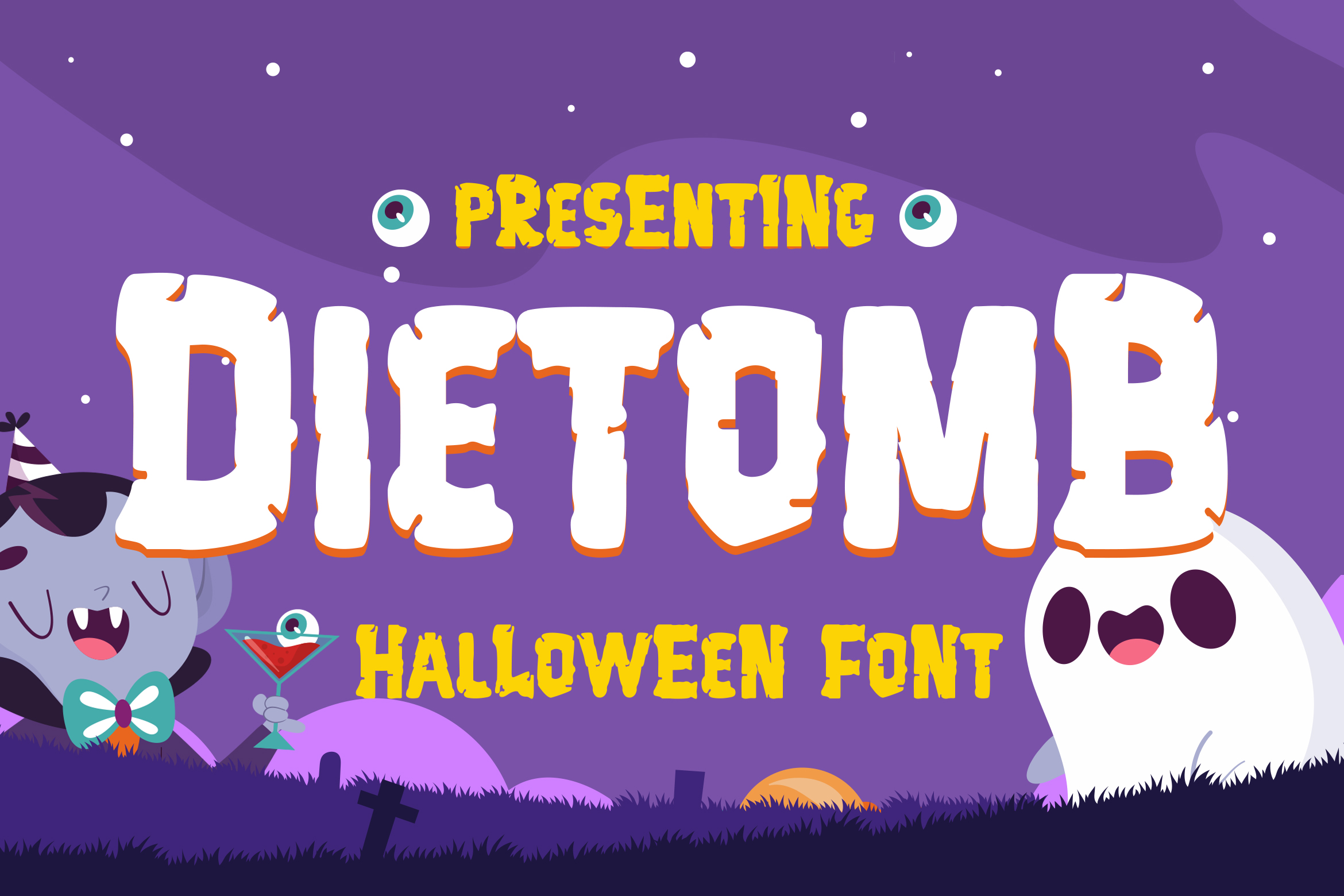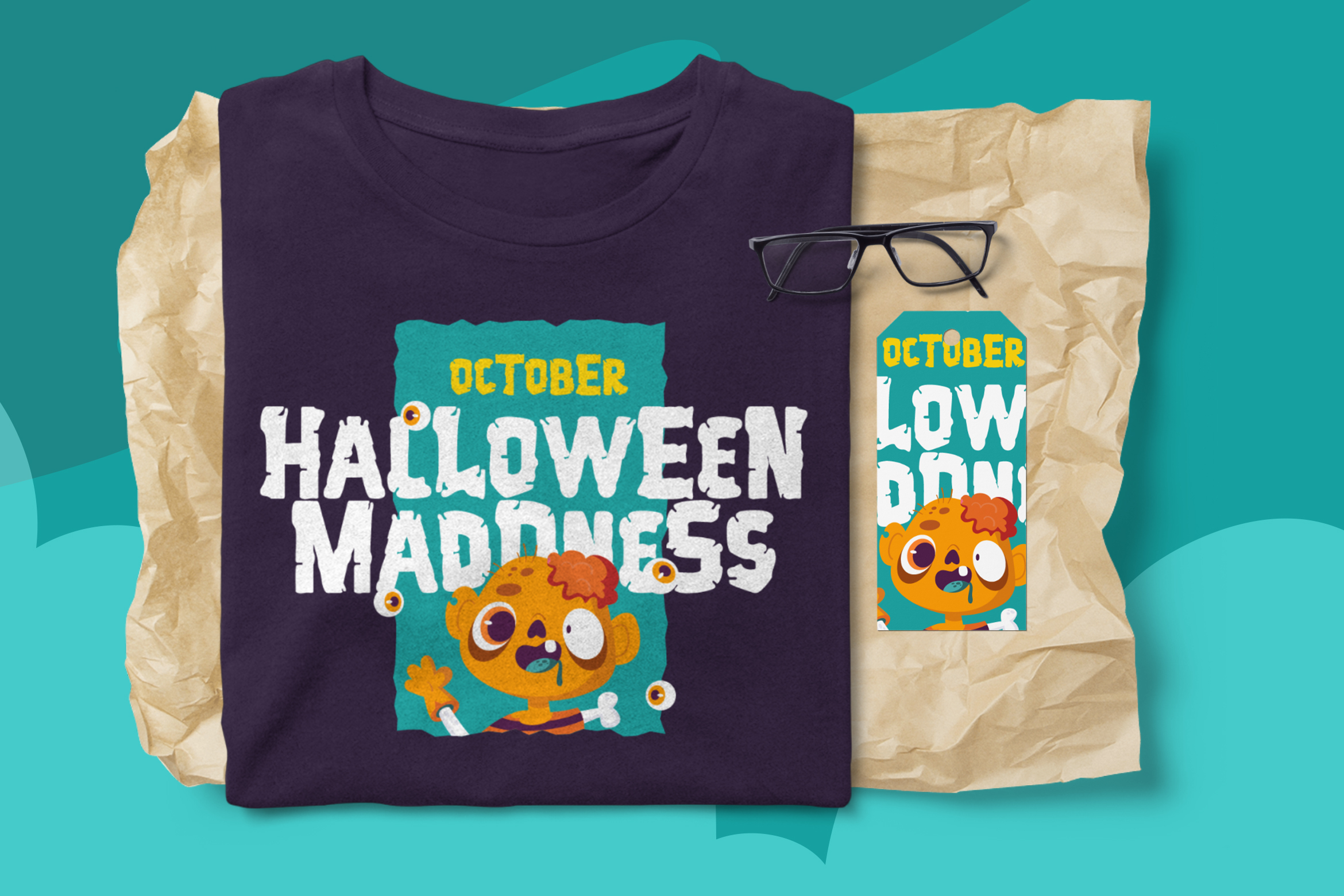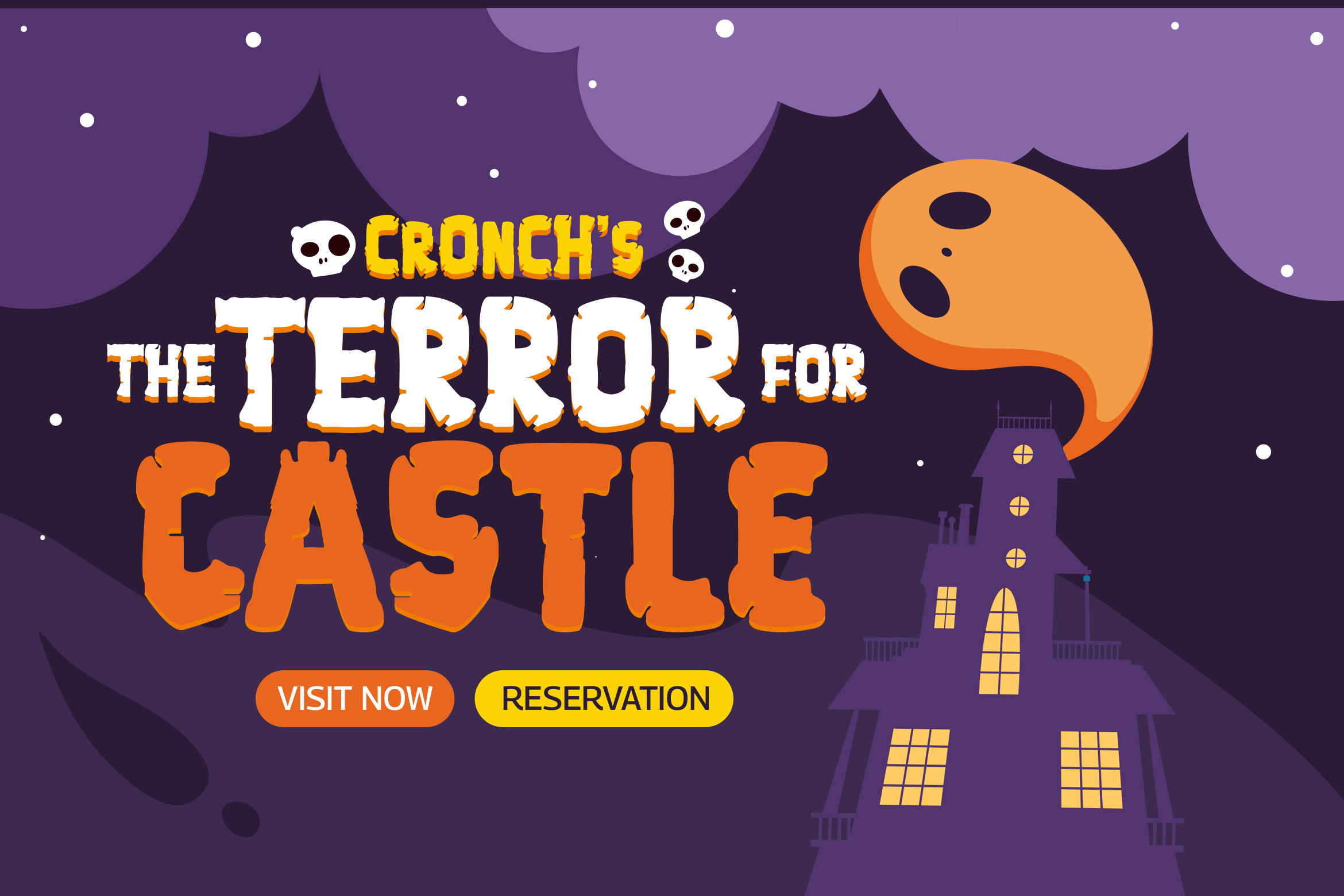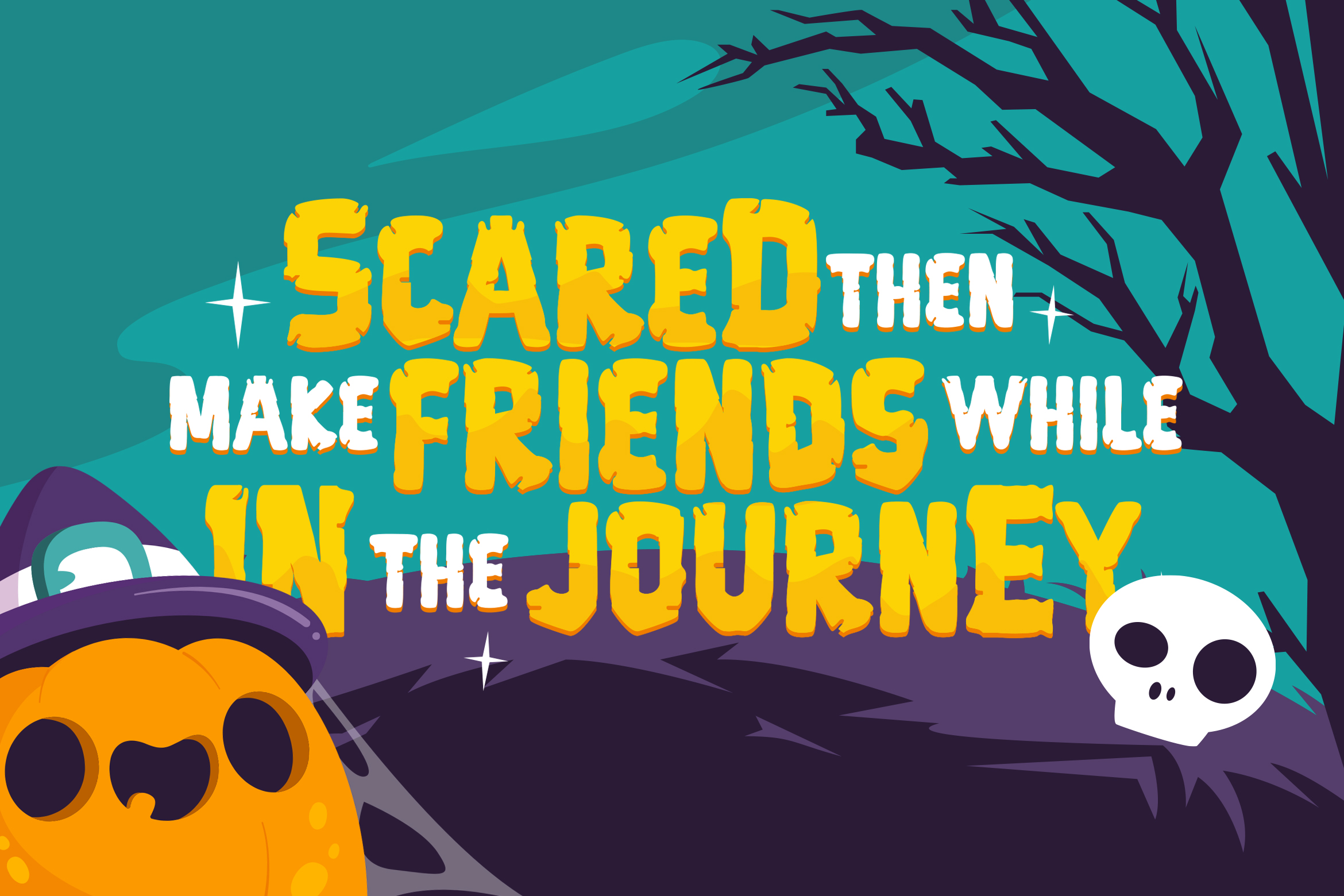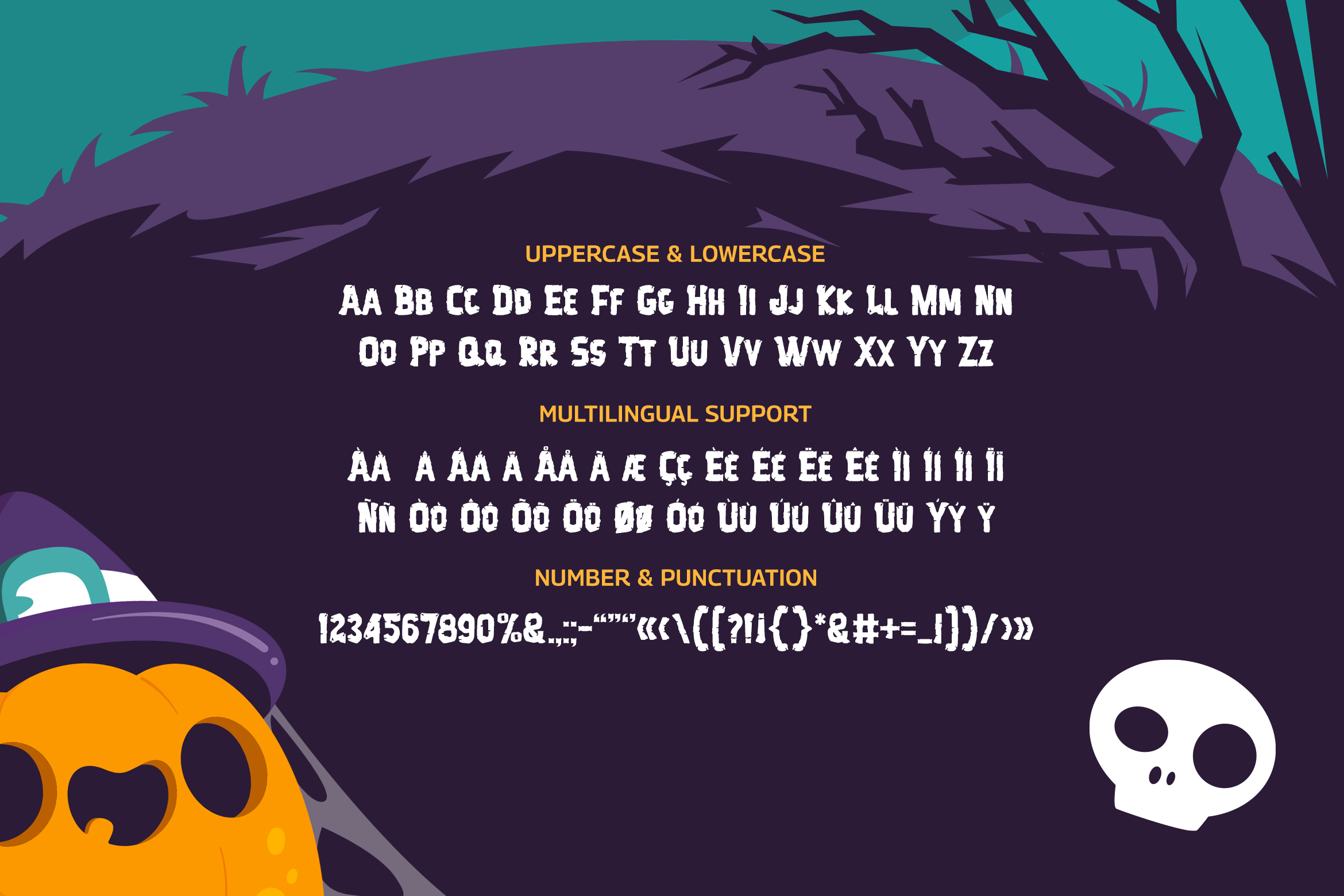
Dietomb is a spooky yet playful Halloween font designed to bring your seasonal projects to life. With its bold, irregular letterforms and eerie cartoonish style, this typeface is perfect for party invitations, T-shirt prints, posters, and social media content during Halloween season. The quirky, drippy shapes and cute character support give it a fun and creepy vibe that both kids and adults will love.
Complete with uppercase, lowercase, multilingual support, and full punctuation, Dietomb ensures your message gets across in any language with style. Whether you’re creating a haunted house banner or a spooky classroom handout, this font adds a dose of horror fun to any design.
Dietomb